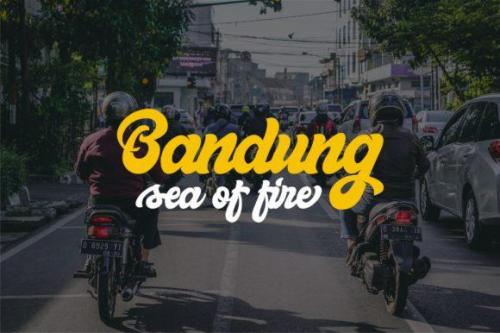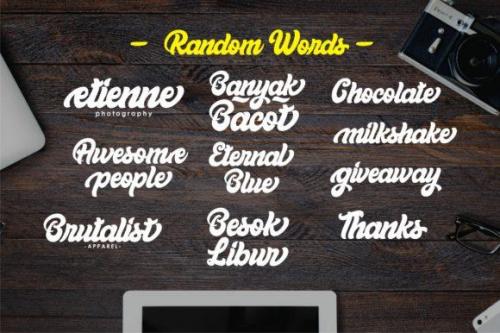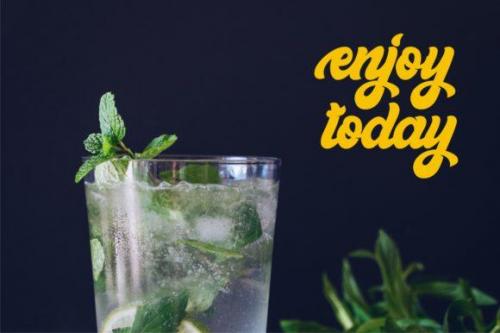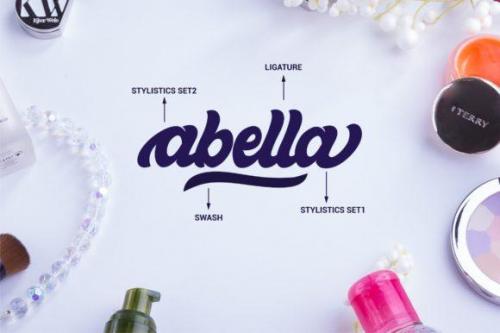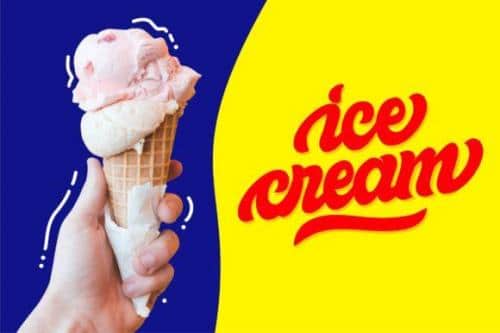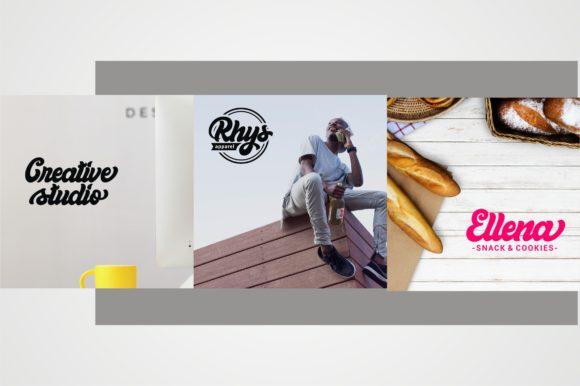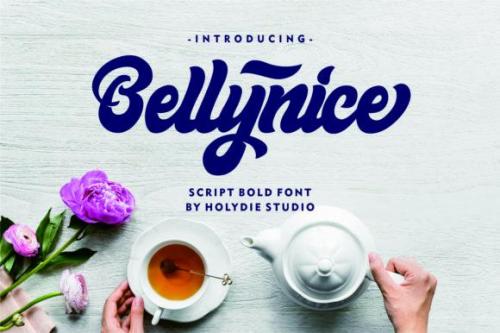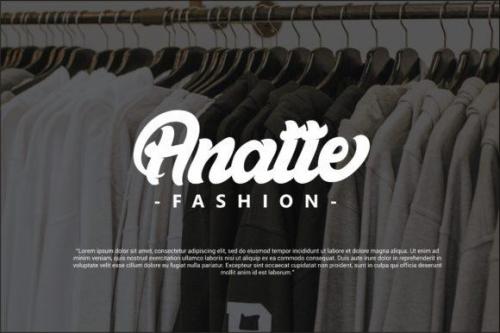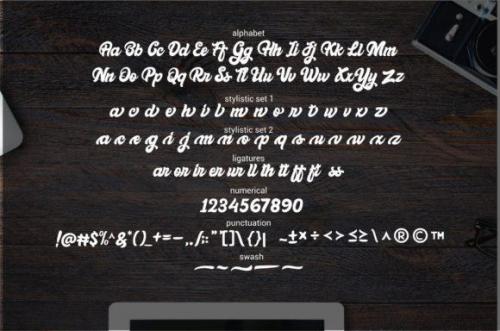
The Bellynice is a bold script font. It was inspired by jelly fat and is perfect for adding a striking look to your designs.
It can be used for branding, logos, product packaging, posters, menu’s, advertising and much more!
- Designer: Holydie Studio